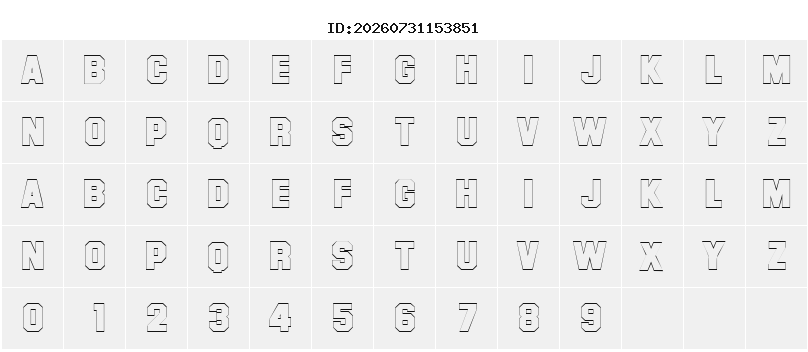
About LetterSweaterSansOpenCapsSSi.ttf
LetterSweaterSansOpenCapsSSi.ttf is a modern, elegant sans-serif font designed for ultimate readability and visual harmony. Perfect for branding, headlines, web design, and print materials.